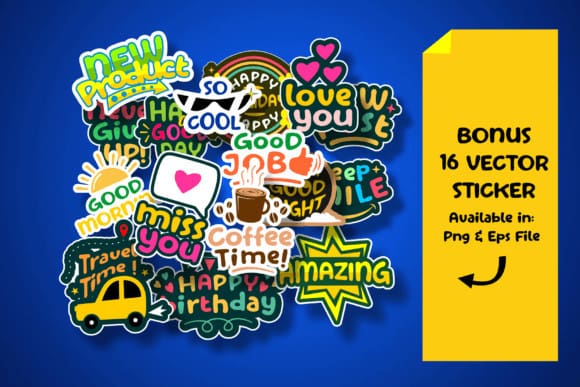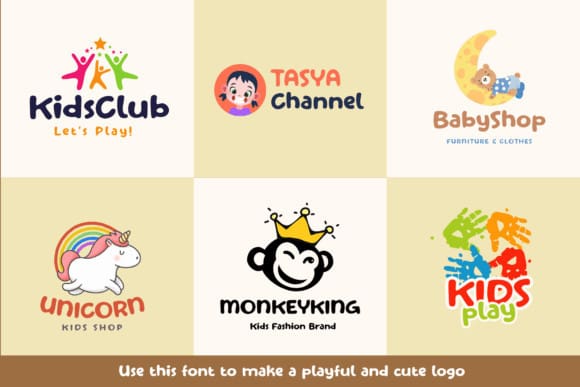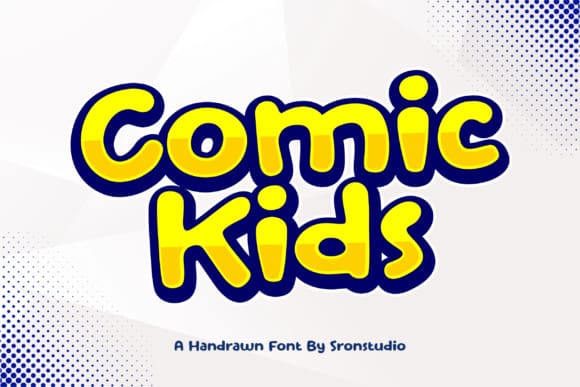
Comic Kids Font
Comic Kids Font is a cute and playful font that radiates fun and charm. With its whimsical letterforms and cheerful design, it’s the perfect choice for projects that need a touch of youthful delight. Whether you’re creating children’s books, playful branding, or any design that calls for a lighthearted and inviting style, “Comic Kids” will bring smiles and warmth to your work.